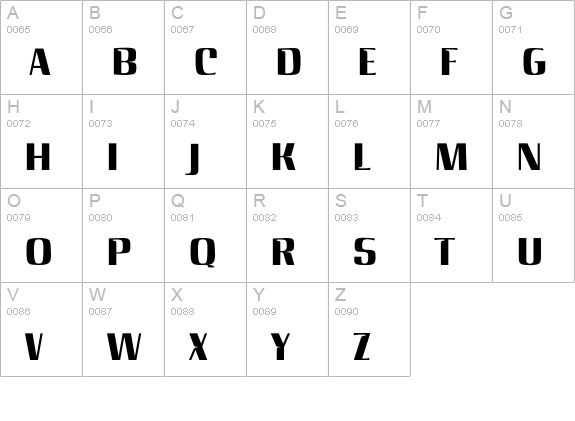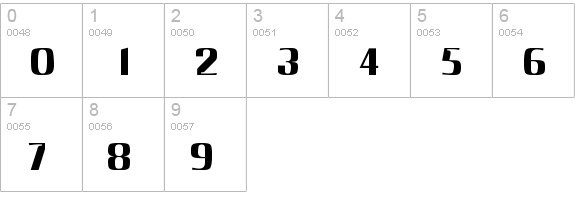
Inverserif-Normal Font Details
Inverserif-Normal is the standard, neutral variant in the Inverserif typeface family \xE2\x80\x94 well suited to general body text, paragraphs, and standard typographic work.
Inverserif-Normal font is a sleek and modern typeface that exudes elegance and sophistication. With its clean lines and balanced letterforms, this font is perfect for a wide range of design projects, from branding and advertising to editorial layouts and website design. One of the standout features of Inverserif-Normal font is its versatility. It can be used for both headings and body text, making it an excellent choice for creating a cohesive and harmonious design. Whether you're creating a minimalist and contemporary layout or a more traditional and classic design, this font will effortlessly adapt to your needs. The Inverserif-Normal font is available in a variety of weights, allowing you to create visual hierarchy and add emphasis where needed. Its legibility is exceptional, ensuring that your message is conveyed clearly and effectively to your audience. And the best part? Inverserif-Normal font is free! That's right, you can freely download this versatile and stylish font at FontsMarket.com. It's a fantastic opportunity to enhance your design projects without breaking the bank. So why wait? Take advantage of this incredible offer and elevate your designs with the Inverserif-Normal font. Download it for free at FontsMarket.com and let your creativity soar.